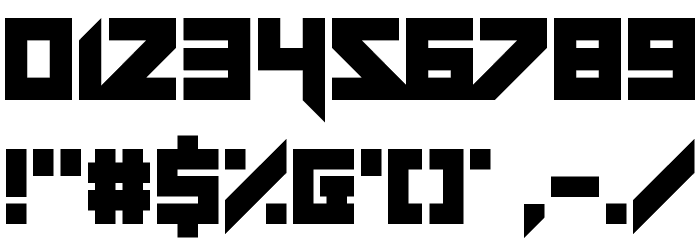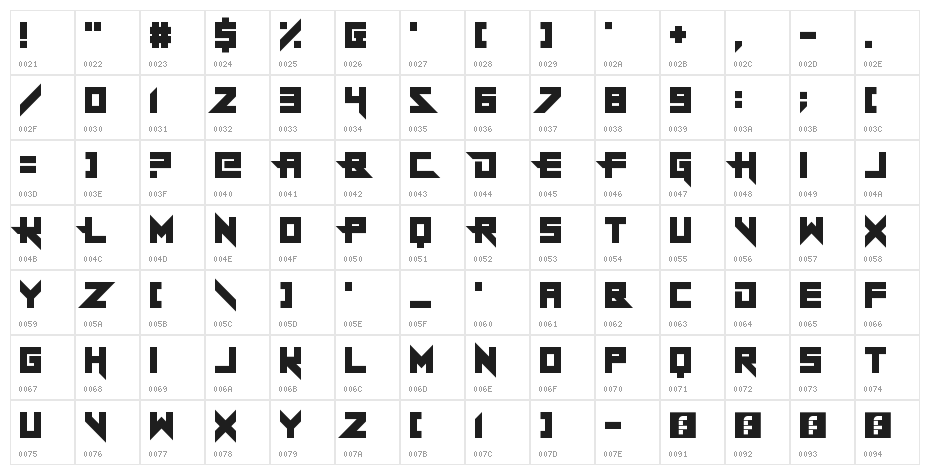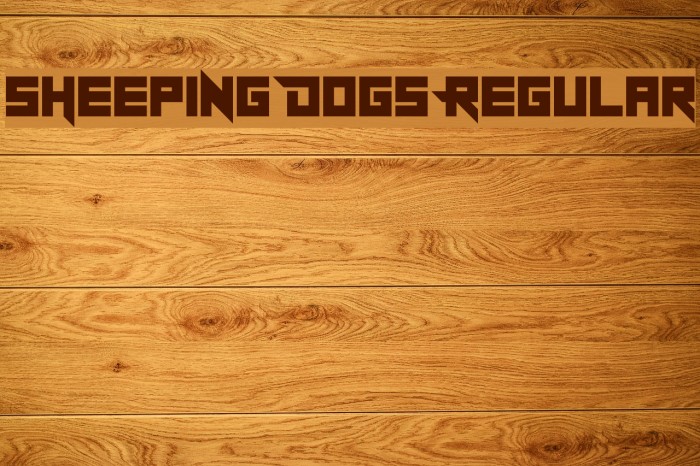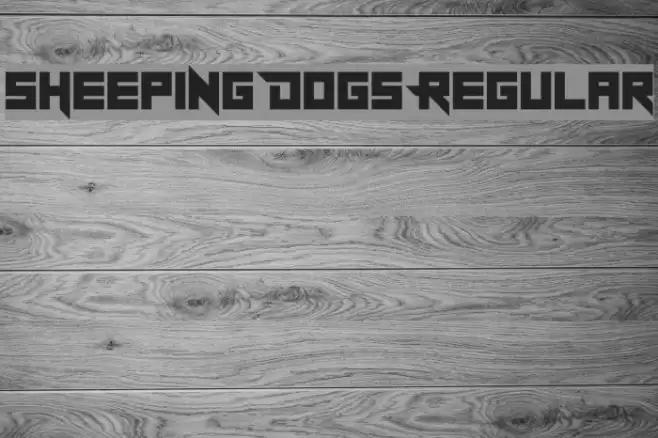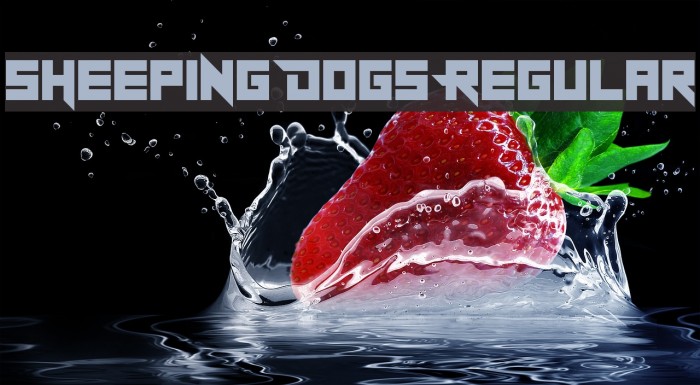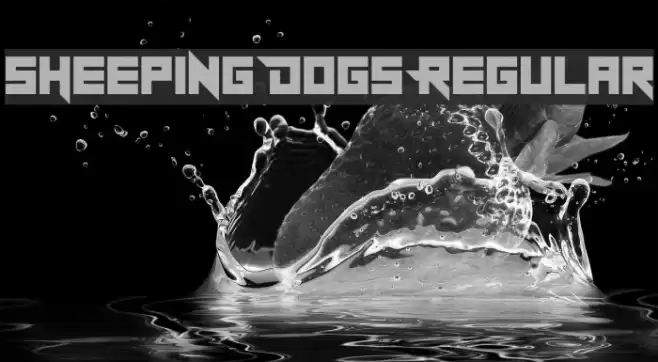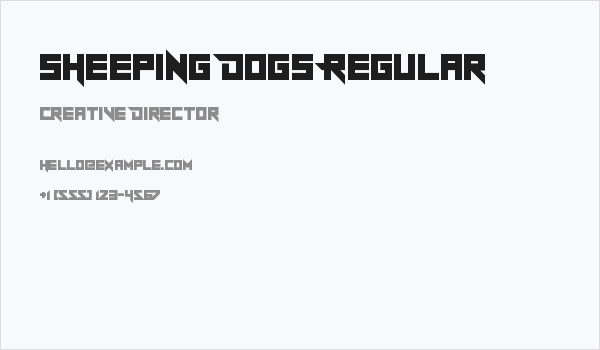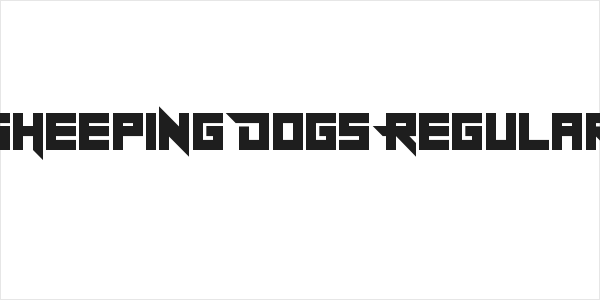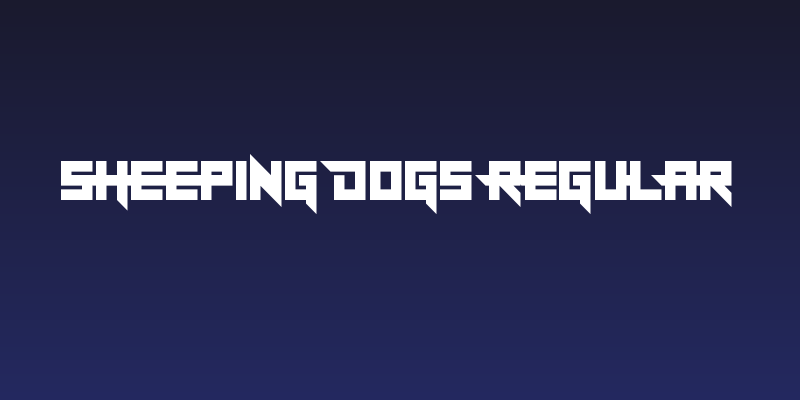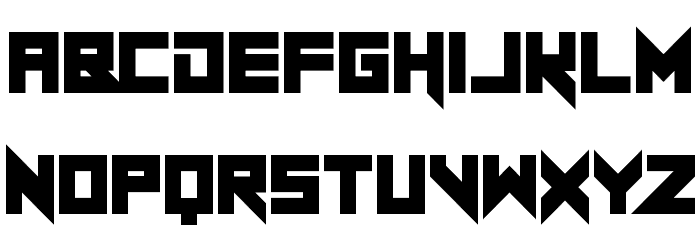
Sheeping Dogs Regular Font
Sheeping Dogs Regular Description
This font features a bold, geometric design with sharp angles and a blocky appearance. The characters are constructed with a futuristic and edgy style, making them stand out with their unique, angular cuts. The uppercase and lowercase letters maintain a consistent height, contributing to a uniform look across the text. The numbers and special characters follow the same design principles, ensuring cohesion throughout. This font's strong visual impact is ideal for projects that require a modern and assertive aesthetic.
| Proposed Projects | Ideal for video game titles, sci-fi movie posters, tech branding, and edgy graphic design projects. |